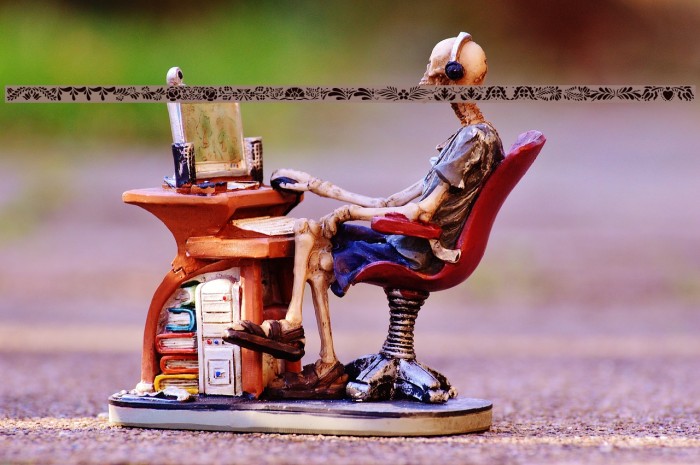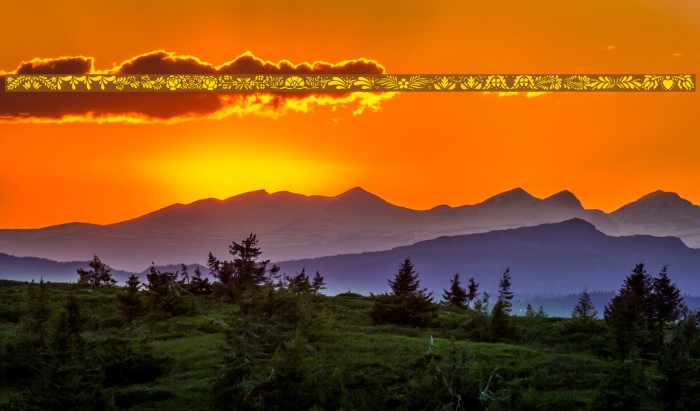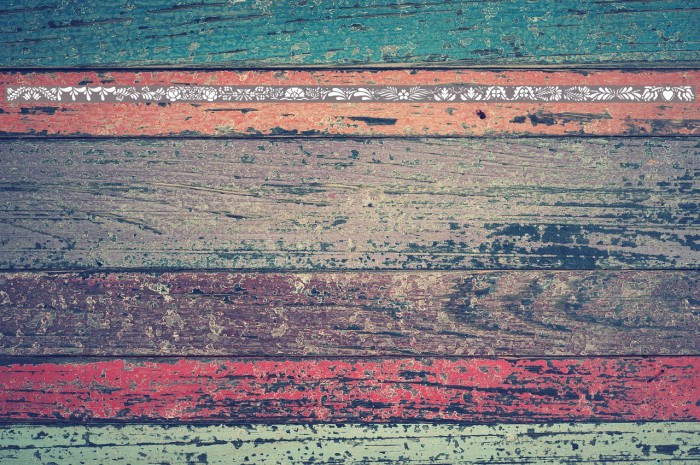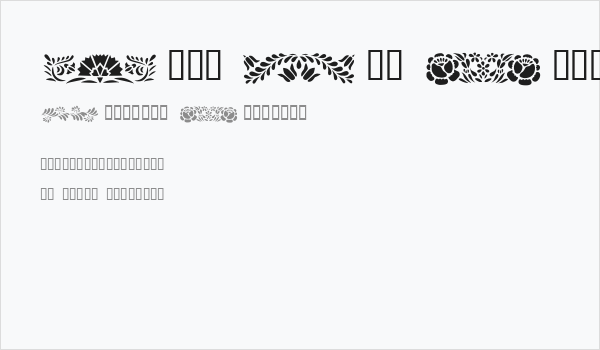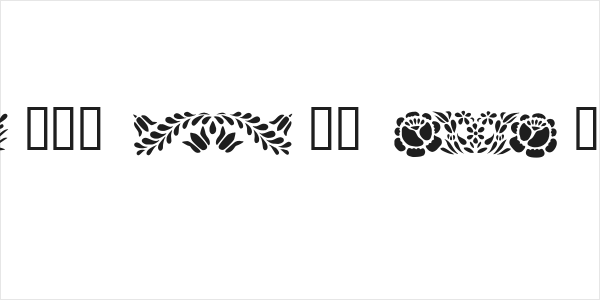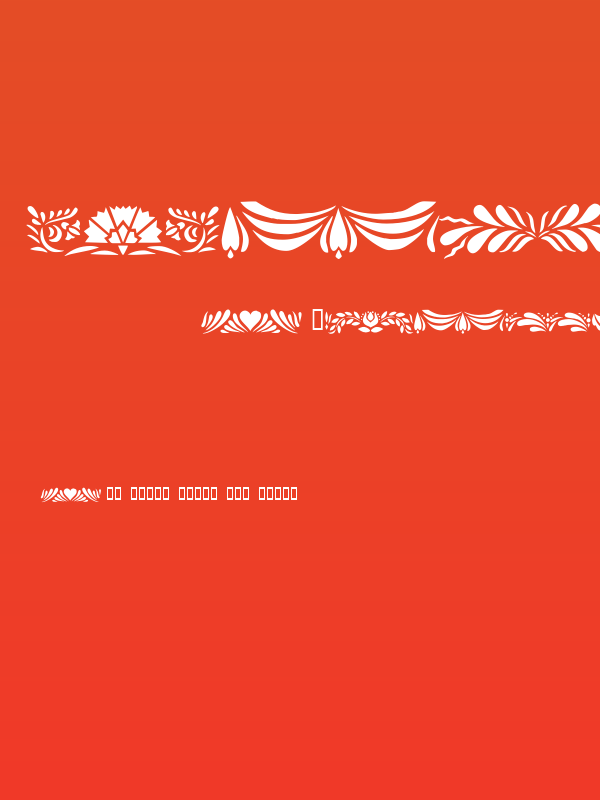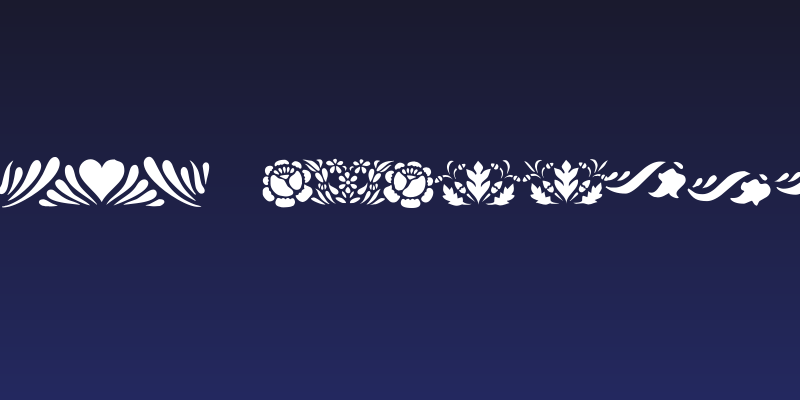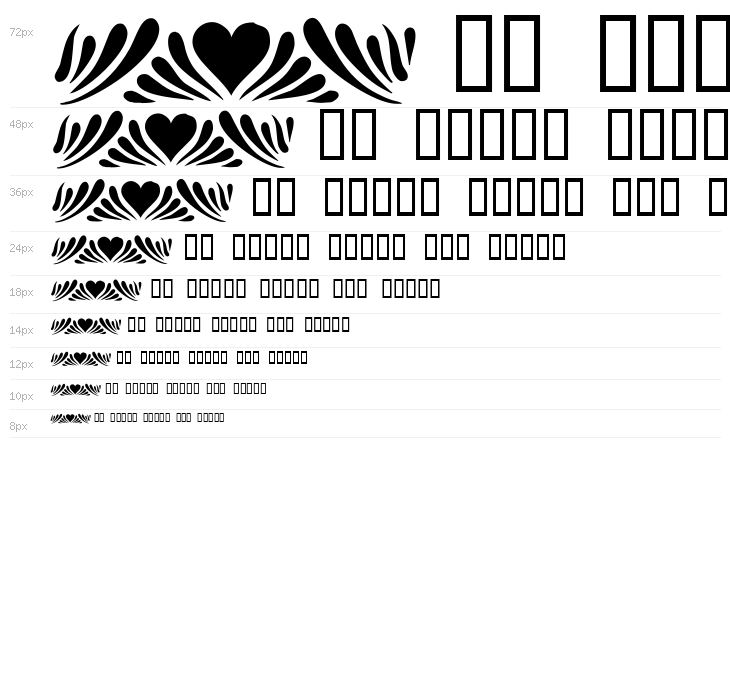
Folk Art Dividers Font
Folk Art Dividers Description
A decorative font featuring intricate folk-art inspired divider motifs, with each character representing a unique ornamental border or flourish. The designs are highly detailed, with symmetrical and organic shapes reminiscent of traditional folk patterns.
| Overall Style | Decorative, Folk-Art, Ornamental |
| Use Case | Dividers, Borders, Decorative accents |
| Proposed Projects | Invitations, certificates, scrapbooking, decorative borders, event programs, folk-themed branding. |